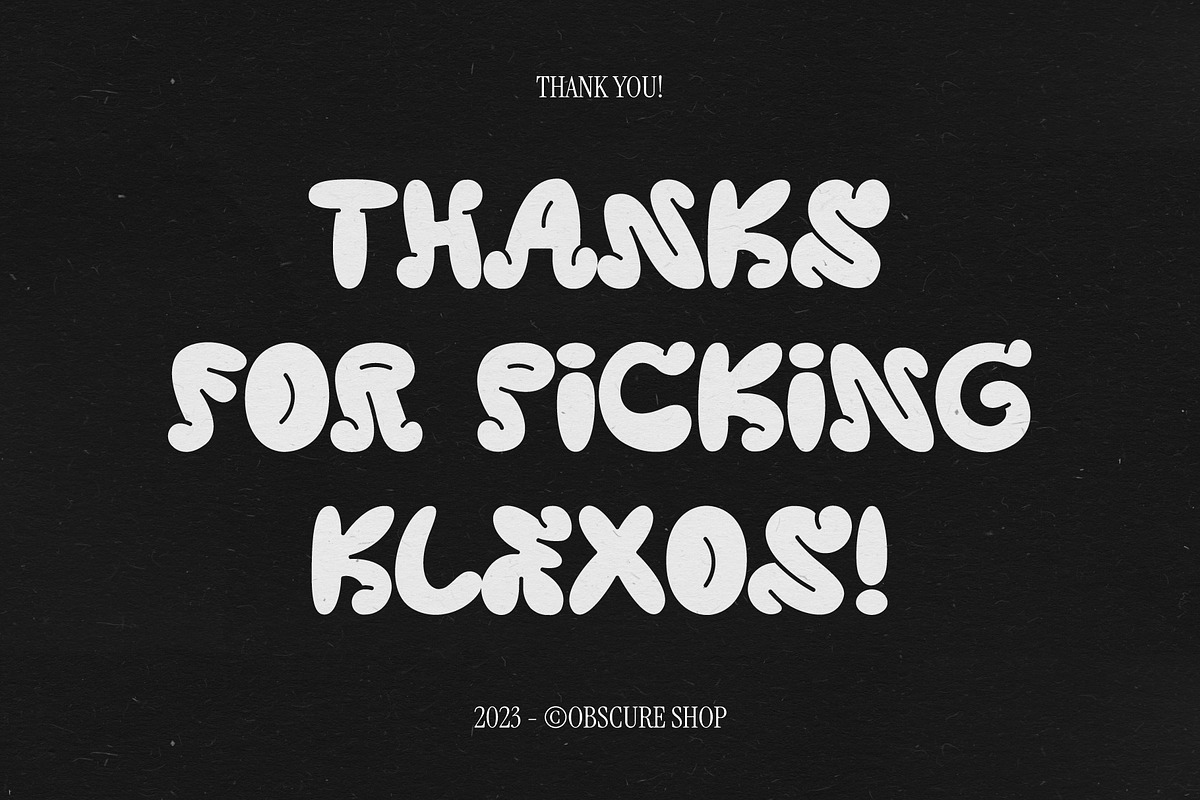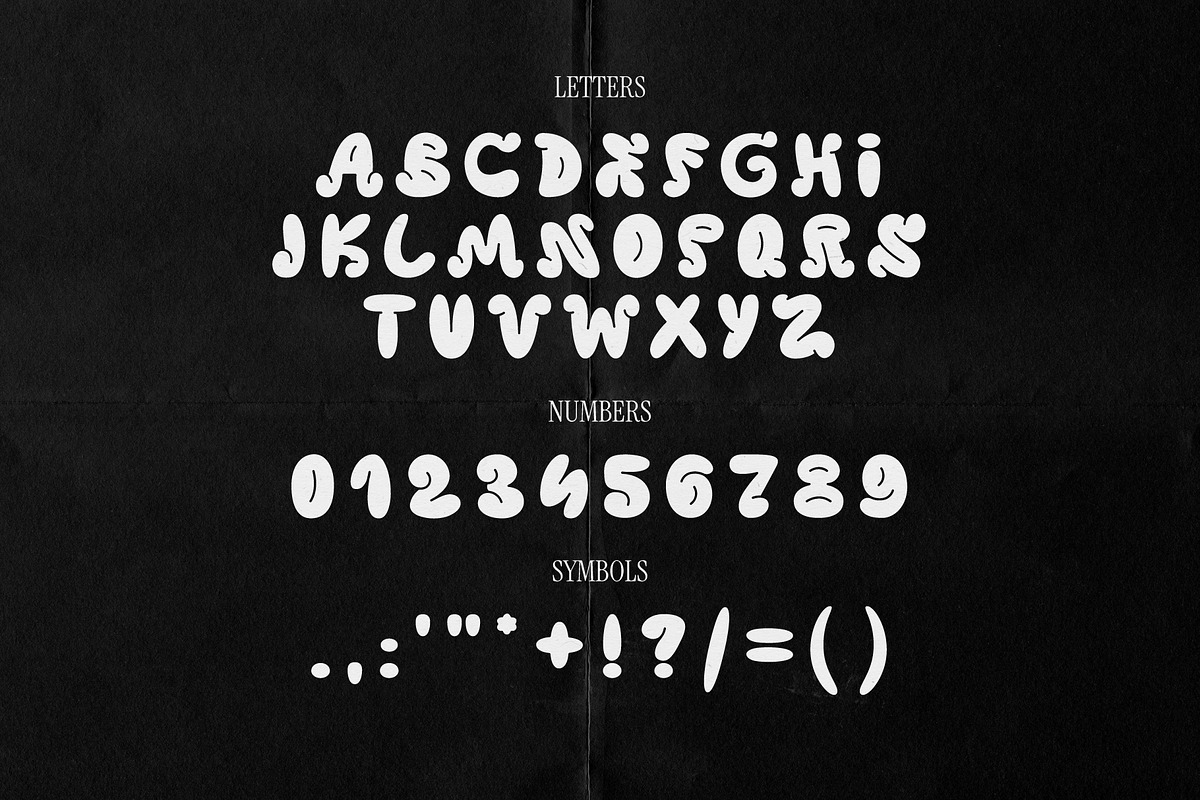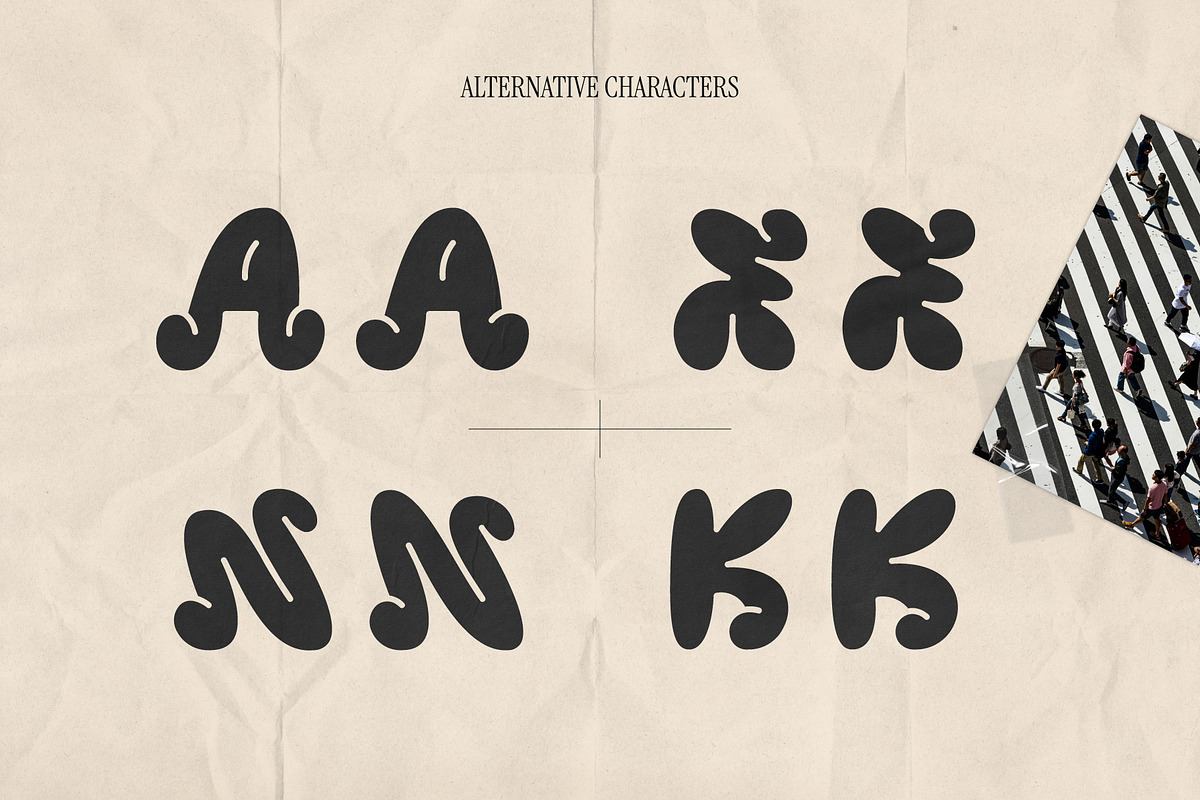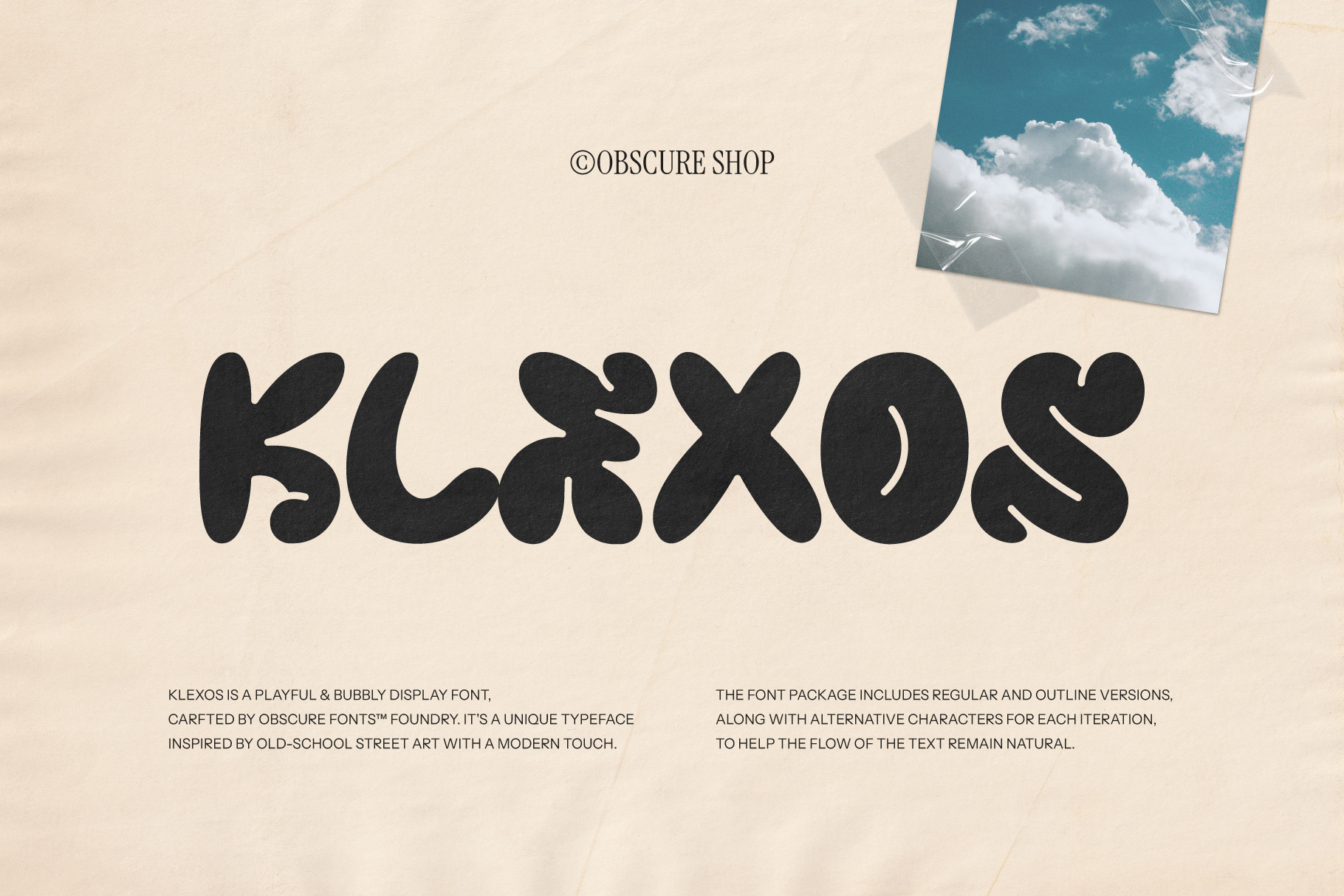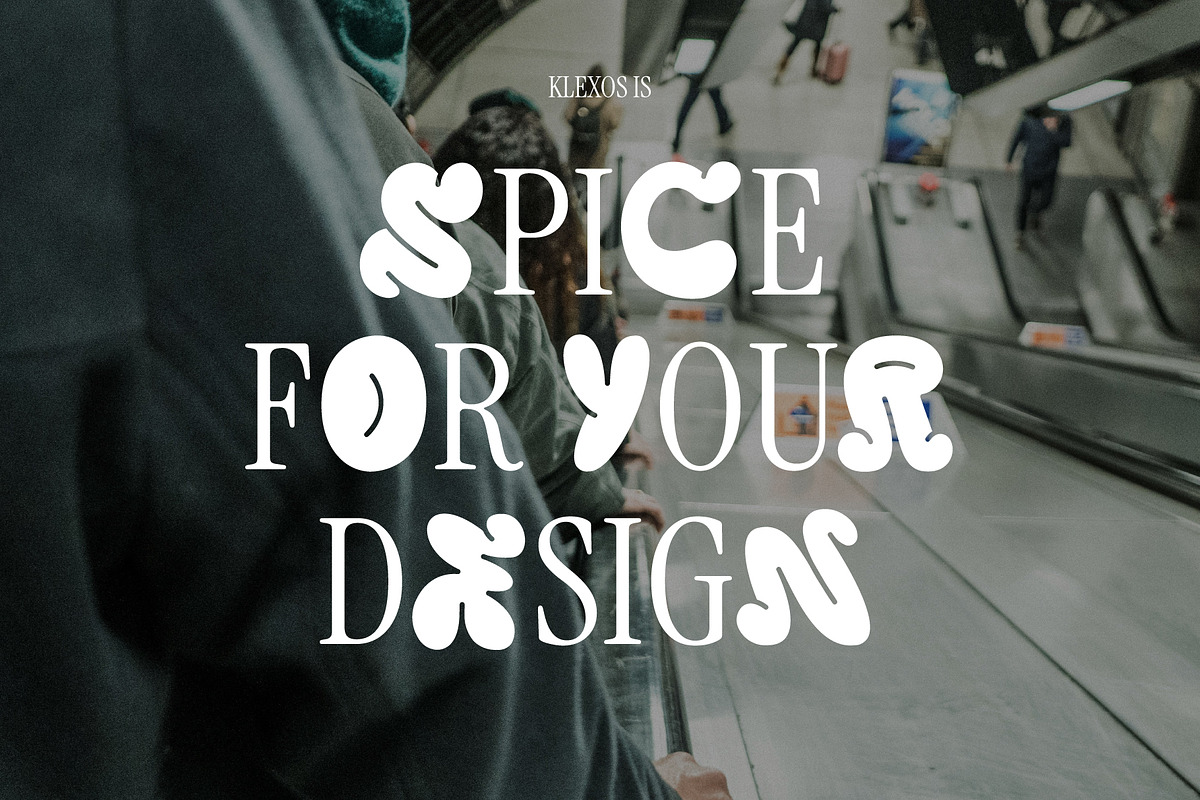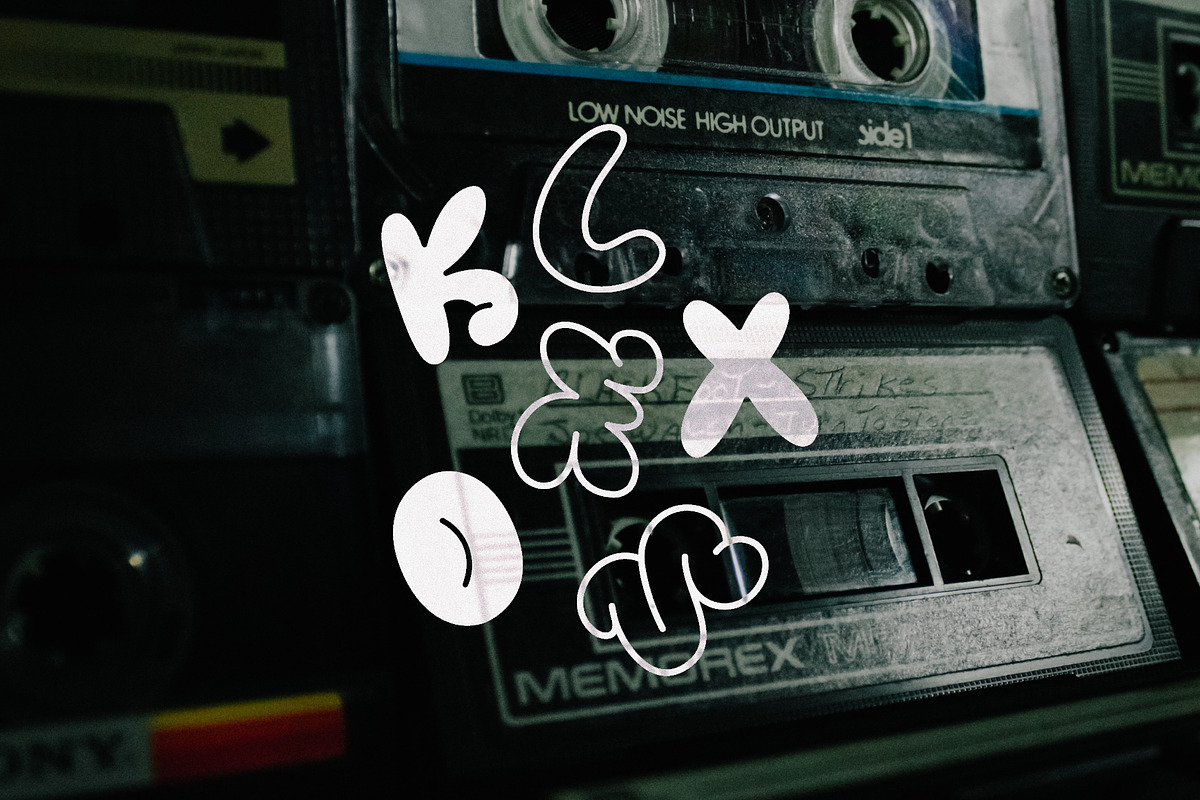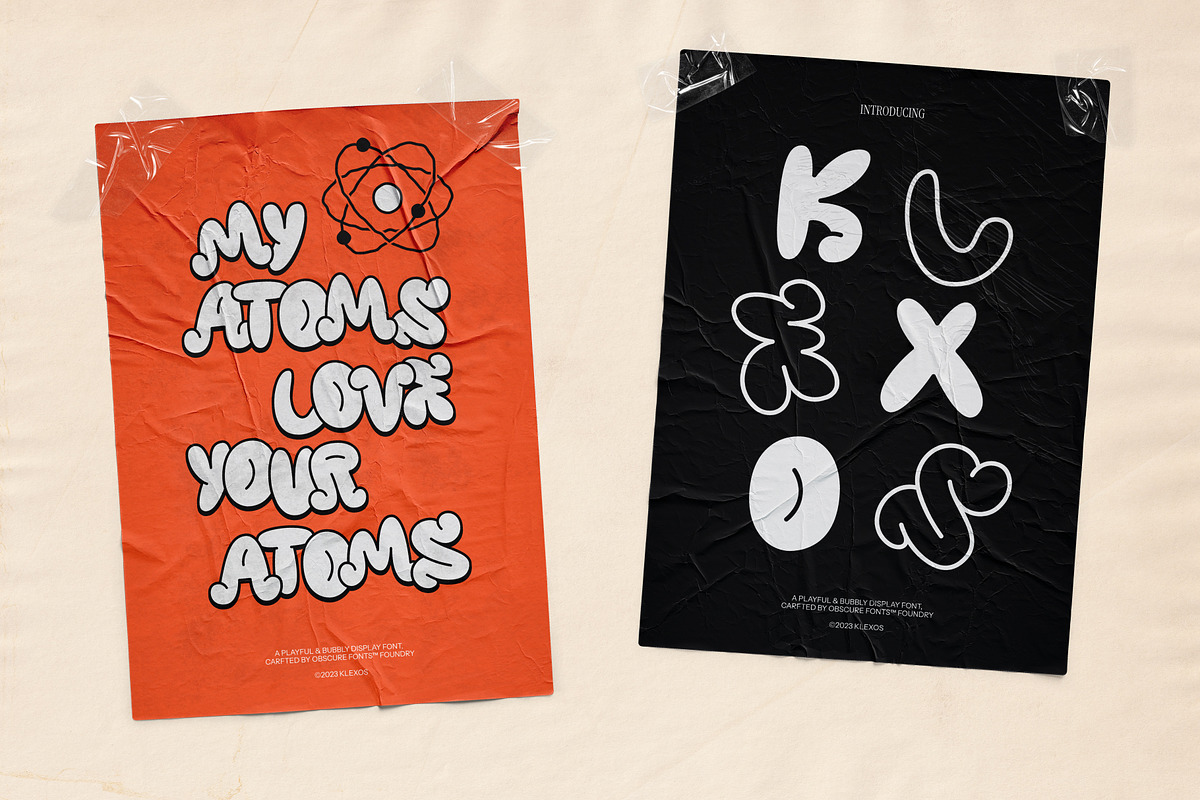
Klexos | Bubbly Display Font
What type of font is Klexos? Klexos is a playful & bubbly display font, carfted by Obscure Fonts™ Foundry. It's a unique typeface, inspired by old-school street art with a modern touch. The font package includes Regular and Outline versions, along with alternative characters for each iteration, to help the flow of the text remain natural.
What should I use it for? This font was not made for neutral and 'play-it-safe' projects, rather for real creative use cases. It's meant for fun brand designs, unique magazine headlines, experimental posters and lots more creative applications.
What does "Klexos" mean? In short, the art of dwelling on the past. From German klecksography, the art of making images from inkblots, famously used in Rorschach psychoanalytic tests. Interpreting their ambiguity is thought to illuminate the subconscious of the patient.